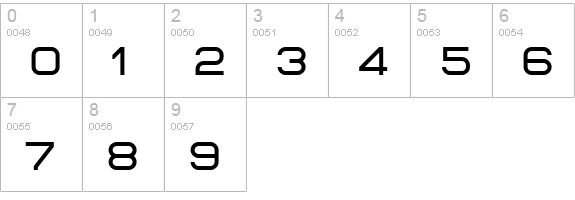
Bicubik font is a modern and stylish typeface that exudes sophistication and versatility. With its clean and geometric shapes, Bicubik font is perfect for a wide range of design projects, from logos and branding to web and print materials. Featuring a unique combination of sharp edges and smooth curves, this font strikes the perfect balance between elegance and boldness. Its distinctive letterforms make a strong impact, ensuring that your message is delivered with utmost clarity and visual appeal. What sets Bicubik font apart is not just its exquisite design, but also the fact that it is available for free. Yes, you read that right! This font is freely available to download at FontsMarket.com, a reputable source for high-quality fonts. Whether you're a professional designer or an aspiring artist, you can now access this remarkable font without breaking the bank. So, go ahead and let your creativity soar with Bicubik font. With its stunning aesthetics and the freedom to use it without any cost, there's no reason not to give your designs an extra touch of sophistication. Download Bicubik font today and elevate your projects to new heights of visual excellence.